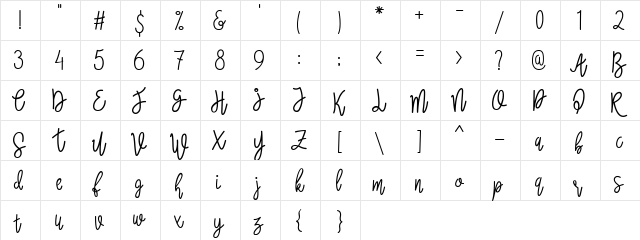
Wanda Script Regular
Design Context for Wanda Script Typeface
Wanda Script brings a calligraphic fluidity to the page — its connecting strokes and expressive curves give it an unmistakably human quality.
Font Pairing: Combine Wanda Script with a simple geometric sans for maximum contrast — the tension between flowing curves and clean structure is a classic typographic pairing.
Pro Tip: Pair Wanda Script with a clean sans-serif for supporting text. The contrast between fluid script and geometric structure creates an elegant typographic hierarchy.